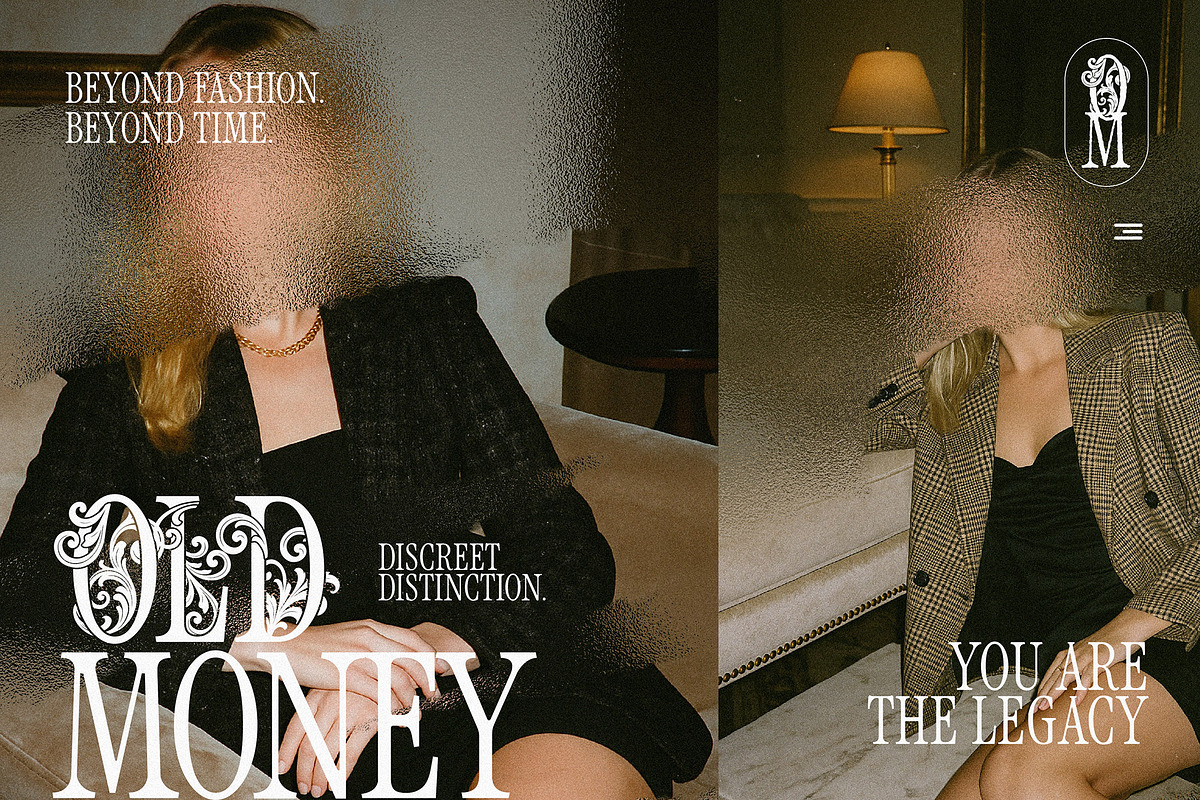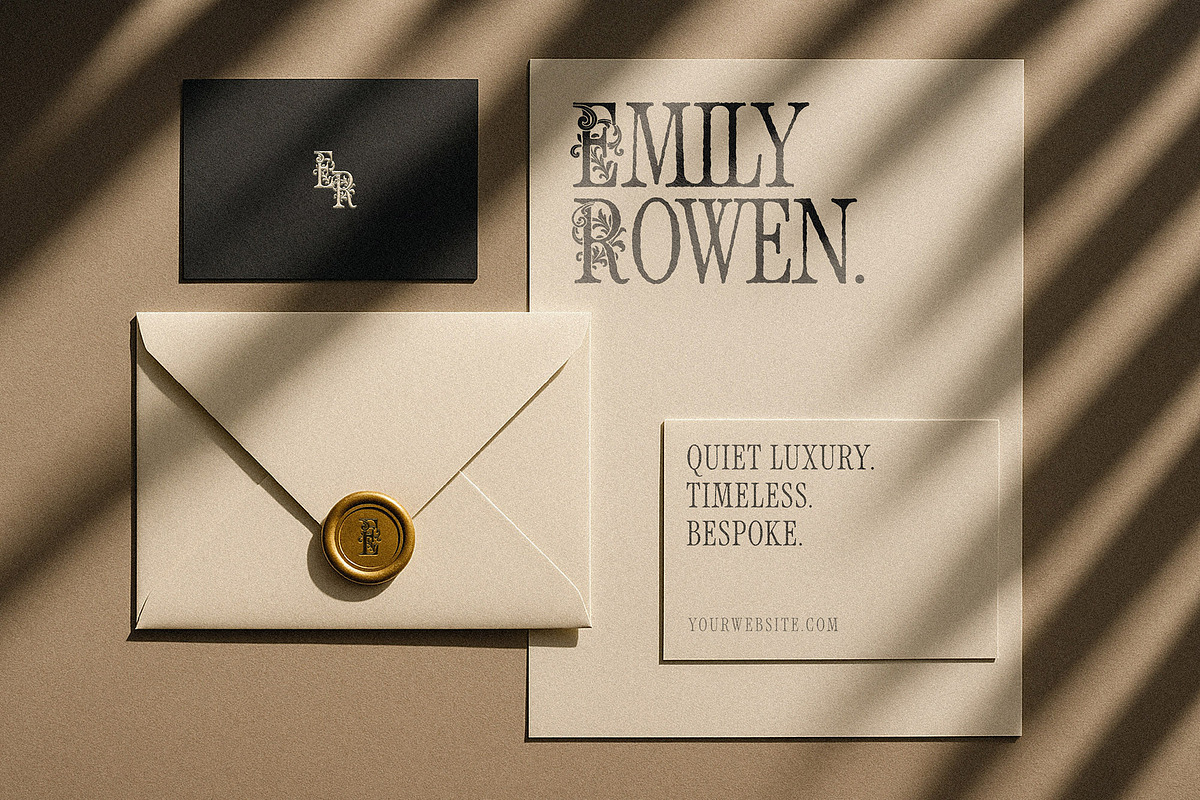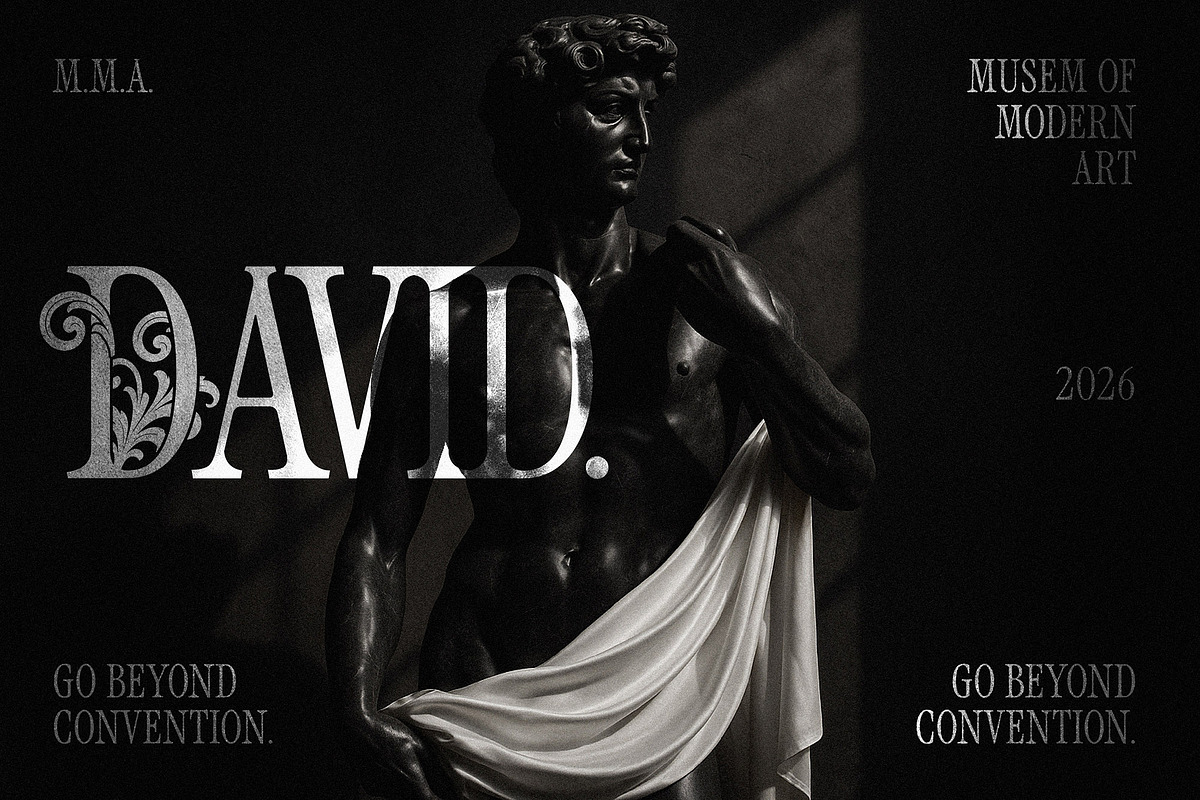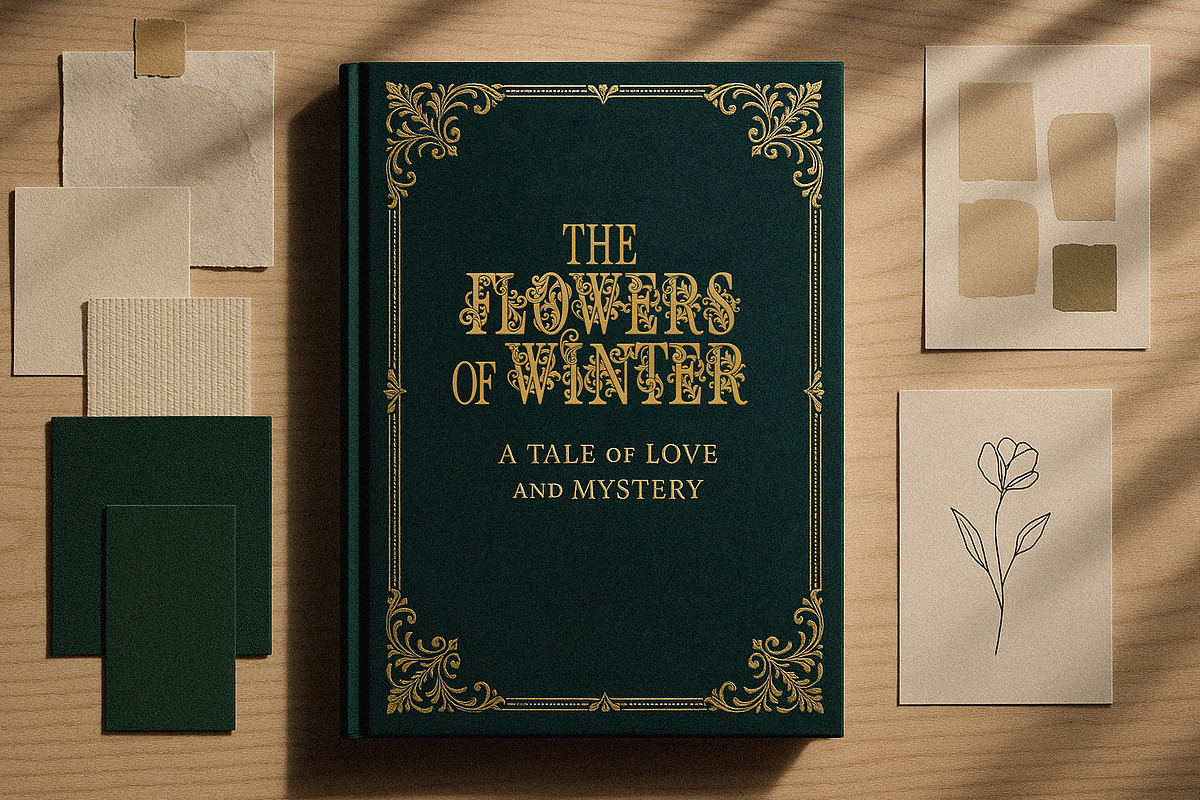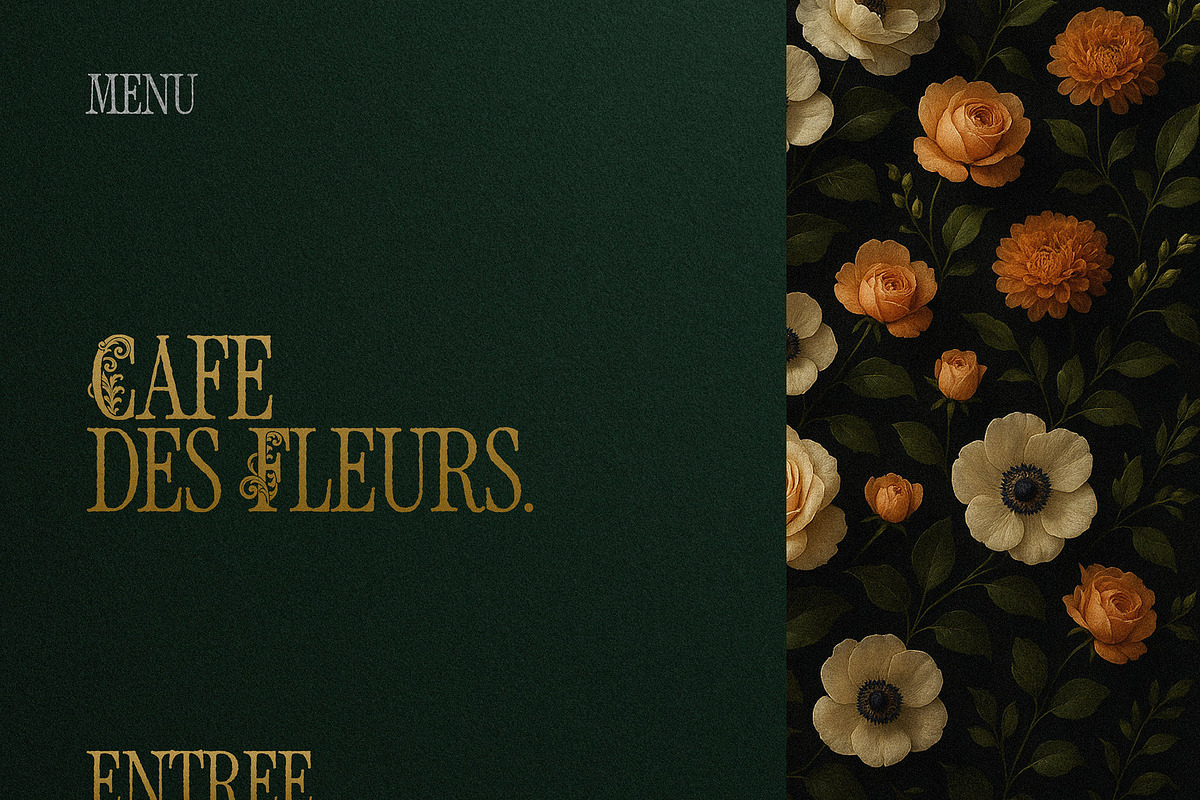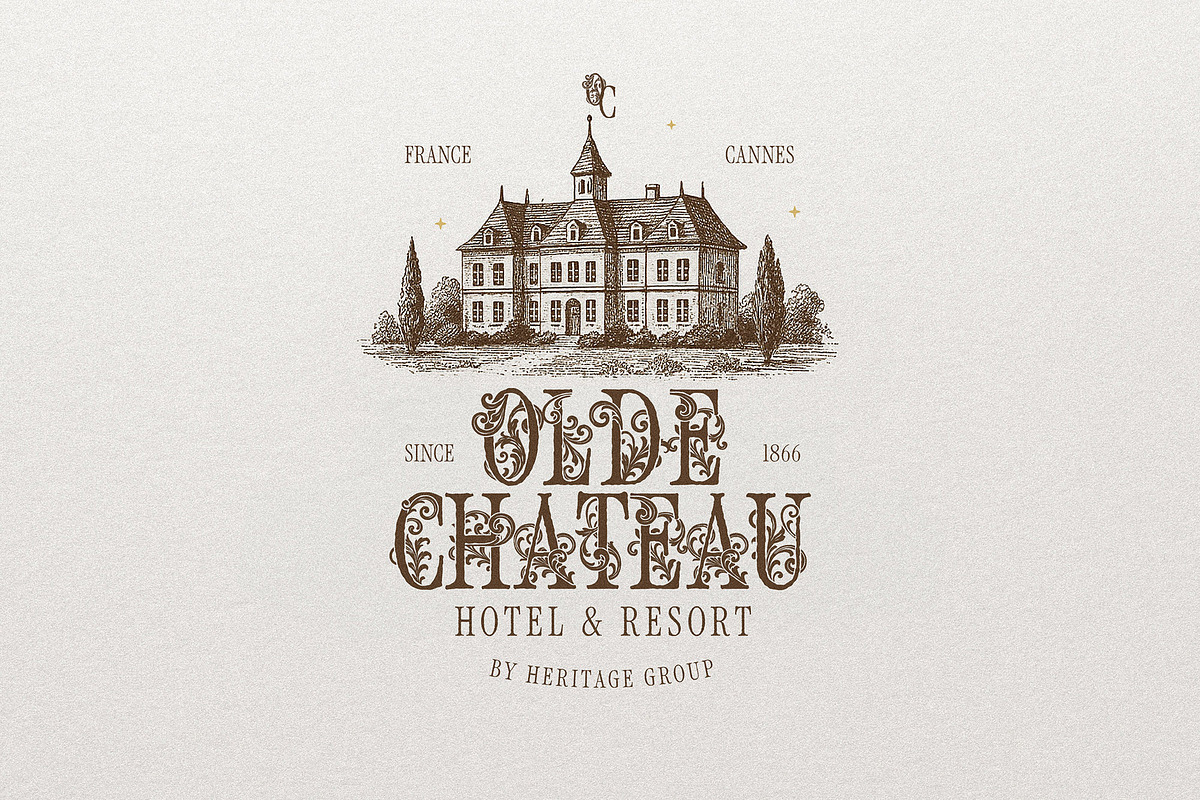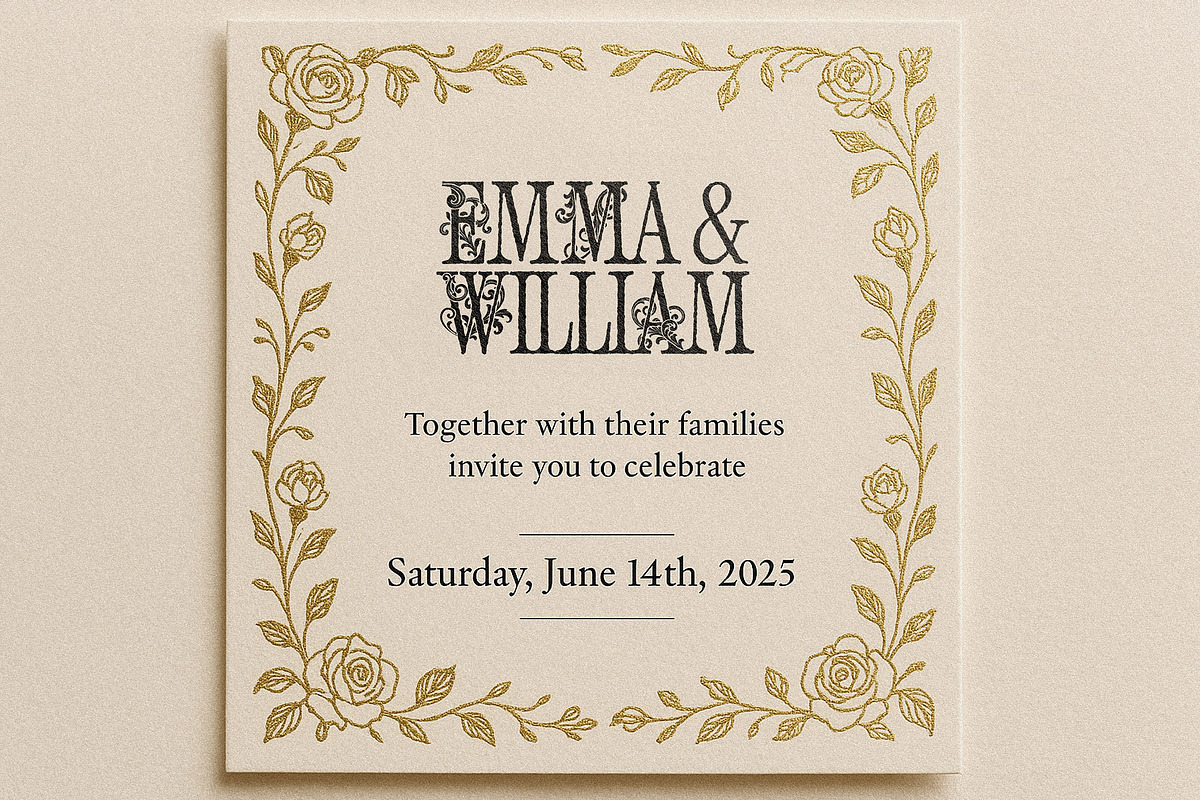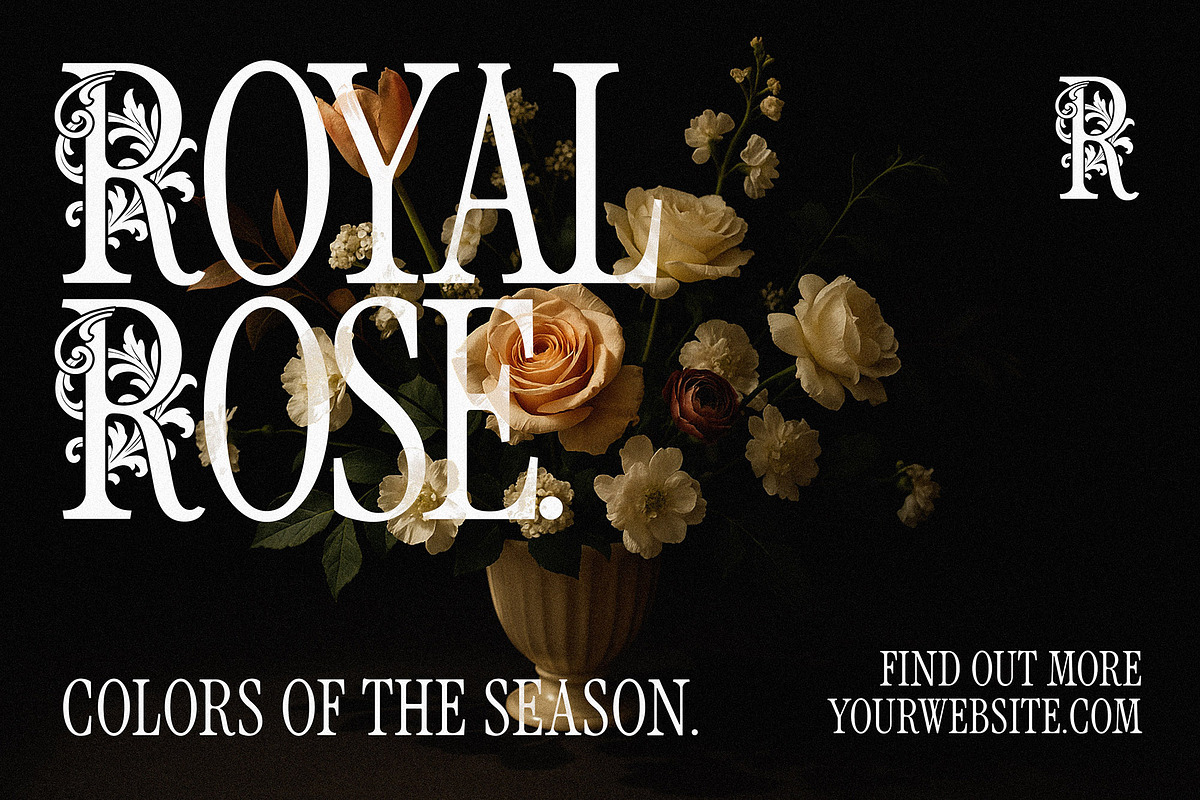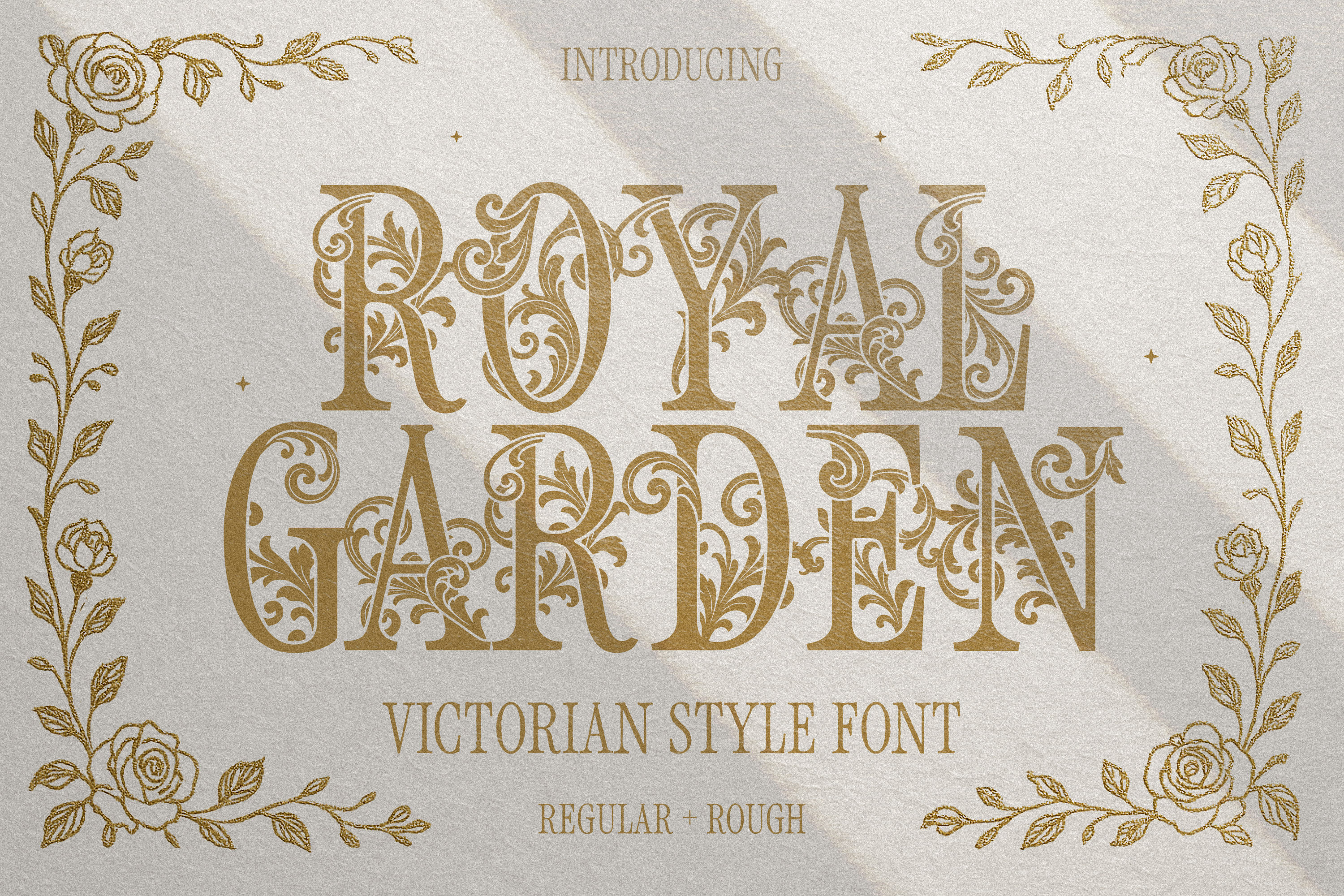
Royal Garden - Swirly Victorian Font
Victorian style decorative font with detailed floral and ornamental designs inside each letter. The typeface has a serif structure, giving it a traditional look, while the intricate swirls and leaf motifs add a touch of elegance and craftsmanship. The font is designed as a display font (best for titles and headlines). It combines vintage charm with a luxurious feel, making it suitable for projects that need a classic and decorative style.
- Luxury brands, jewelry, perfumes, boutiques, heritage labels
- Wine bottles, chocolates, cosmetics, handmade products
- Book covers, editorial headlines, vintage-themed magazines
- Wedding invitations, menus, signage, greeting cards
- Cafés, restaurants, hotels with classic or vintage themes
- Historical presentations, Victorian-themed events, theatre promotions